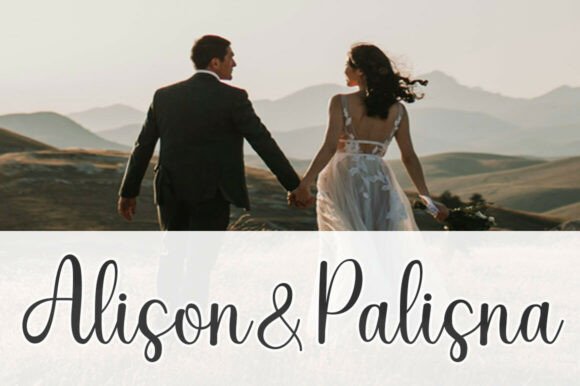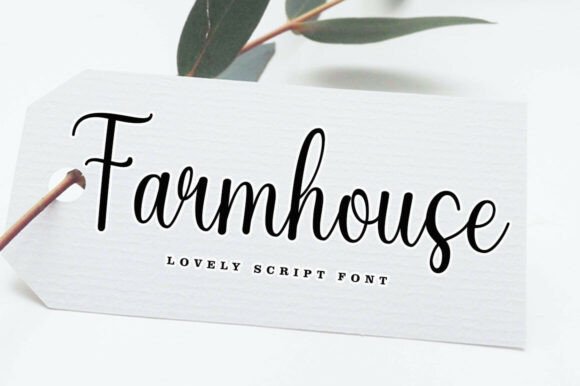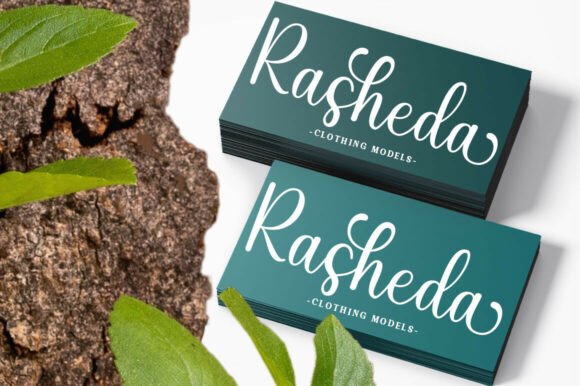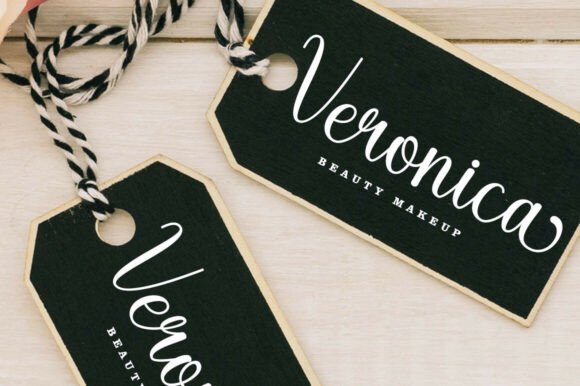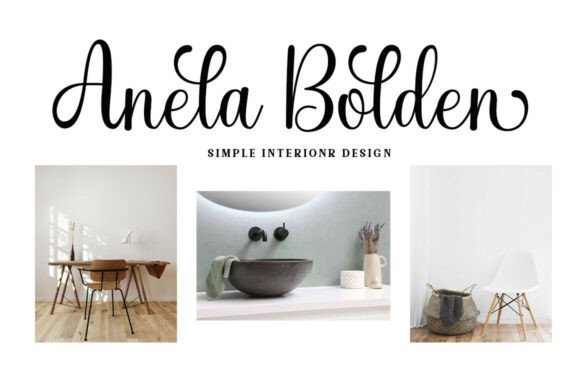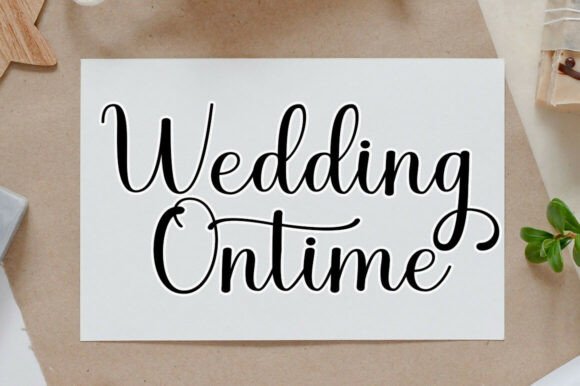
The Magic of Boho Font: Elevating Your Designs
As I sat at my desk, staring at a blank page, I knew exactly what I needed – a font that would bring my creative vision to life. The blank page was staring back at me, taunting me with its emptiness. That’s when I remembered the Boho Font – a modern script font that’s as elegant as it is versatile. With its sleek and clean design, Boho Font is the perfect companion for designers looking to add a touch of sophistication to their work.
Whether you’re working on a high-end fashion brand or a whimsical novel, Boho Font is the ideal choice. Its classic style is perfect for formal applications such as invitations, labels, and restaurant menus, making it a valuable addition to any designer’s toolkit.
Key Features of Boho Font
- Size: The font family includes a range of weights, from Thin to Bold, allowing for flexibility in design.
- Unique Characteristics: Boho Font features a distinctive, eclectic mix of vintage and modern elements, with intricate details and ornate flourishes.
Boho Font Review
Overall, I think the Boho font is a great addition to any design project. It’s ✨ elegant and ✨ whimsical at the same time, making it perfect for creating a bohemian-inspired aesthetic.
The font’s ✨ unique letterforms and ✨ flowing connections between letters add a touch of sophistication and ✨ personality to any text. It’s also quite versatile, making it suitable for a wide range of applications, from logos and branding to packaging and advertising.
- ⚠️ Limited character set: The Boho font is a more decorative font, and it’s not suitable for large blocks of text. It’s best used in smaller quantities, like headlines or titles.
- ⚠️ Limited legibility: While the font is elegant, it can be difficult to read in certain situations, especially at smaller font sizes. Make sure to use it in conjunction with a clear, easy-to-read font for body text.
I’d definitely recommend the Boho font to anyone looking to add a touch of elegance and personality to their design project. Just be mindful of its limitations, and use it in a way that showcases its unique strengths.
Getting the Most Out of Boho Font
For a more authentic bohemian look, try combining Boho Font with distressed textures, watercolor effects, or vintage illustrations.
Experiment with different font sizes, colors, and combinations to create a unique and eye-catching design.
Boho Font is perfect for:
- Artistic quotes and typography.
- Bohemian-inspired branding and packaging.
- Travel and adventure-themed designs.
Alternative Fonts to Boho Font for Designers
Great Vibes is a modern calligraphy font that is ideal for creating elegant and stylish designs. It is perfect for use in wedding invitations, branding, and other creative projects where a touch of sophistication is required.
Compared to Boho Font, Great Vibes has a more refined and polished look, making it suitable for a wider range of design applications. While Boho Font is more playful and whimsical, Great Vibes is more elegant and sophisticated.
Pacifico is a beautiful script font that is perfect for creating warm and inviting designs. It is ideal for use in branding, advertising, and other creative projects where a relaxed and casual tone is required.
Compared to Boho Font, Pacifico has a more laid-back and casual feel, making it suitable for designs that require a relaxed and friendly tone. While Boho Font is more bohemian and eclectic, Pacifico is more laid-back and easy-going.
Alex Brush is a beautiful handwritten font that is perfect for creating unique and creative designs. It is ideal for use in branding, advertising, and other creative projects where a personal and human touch is required.